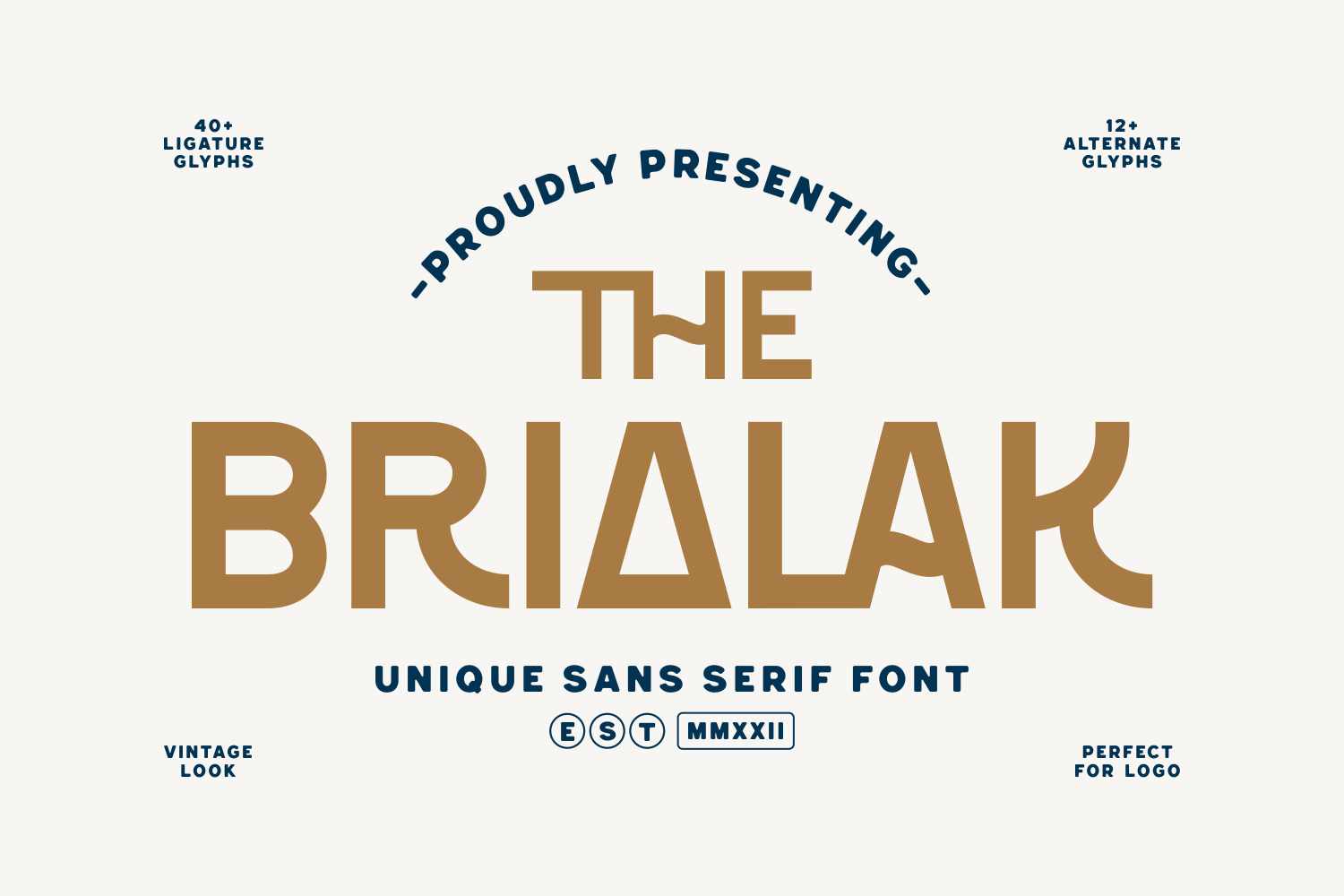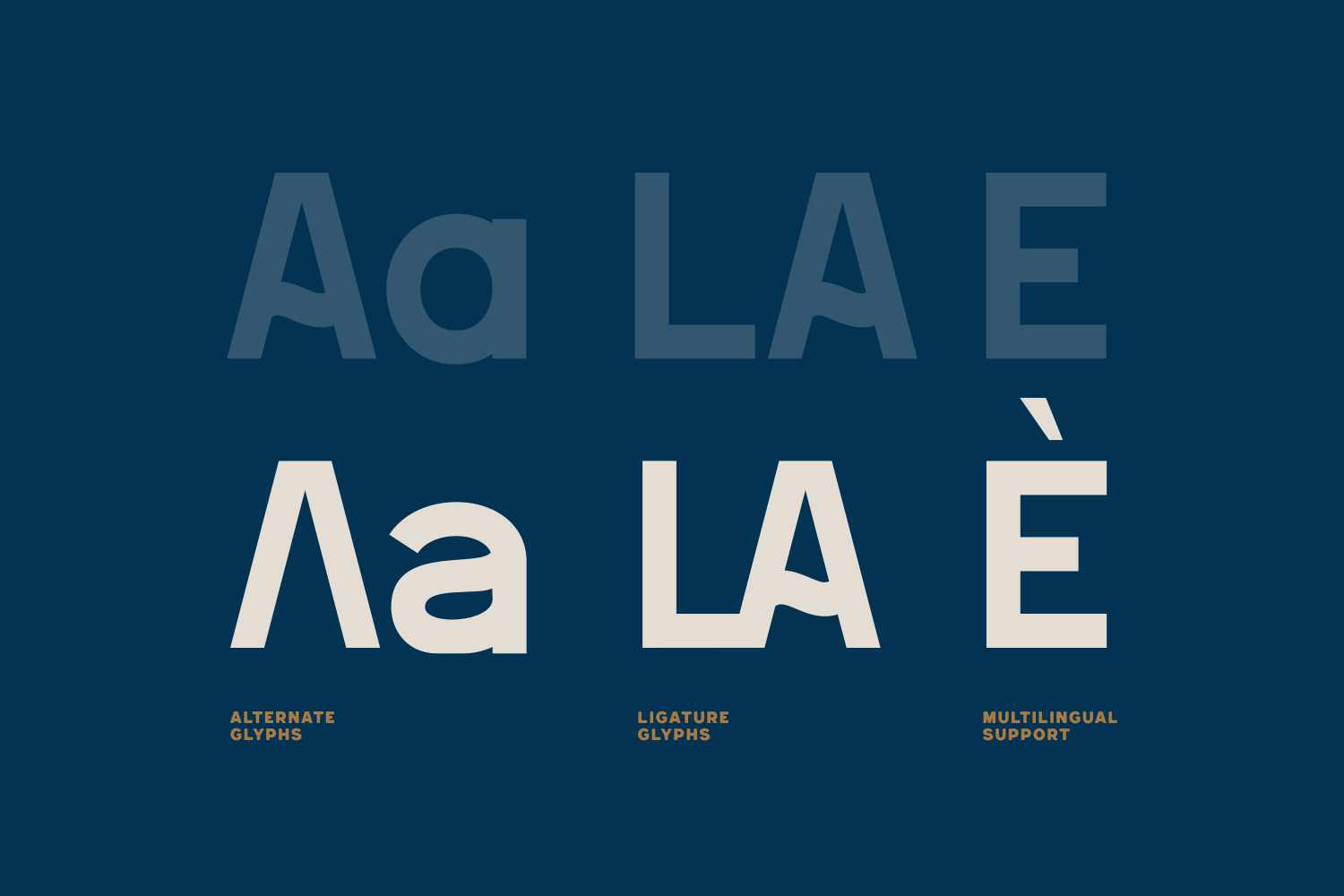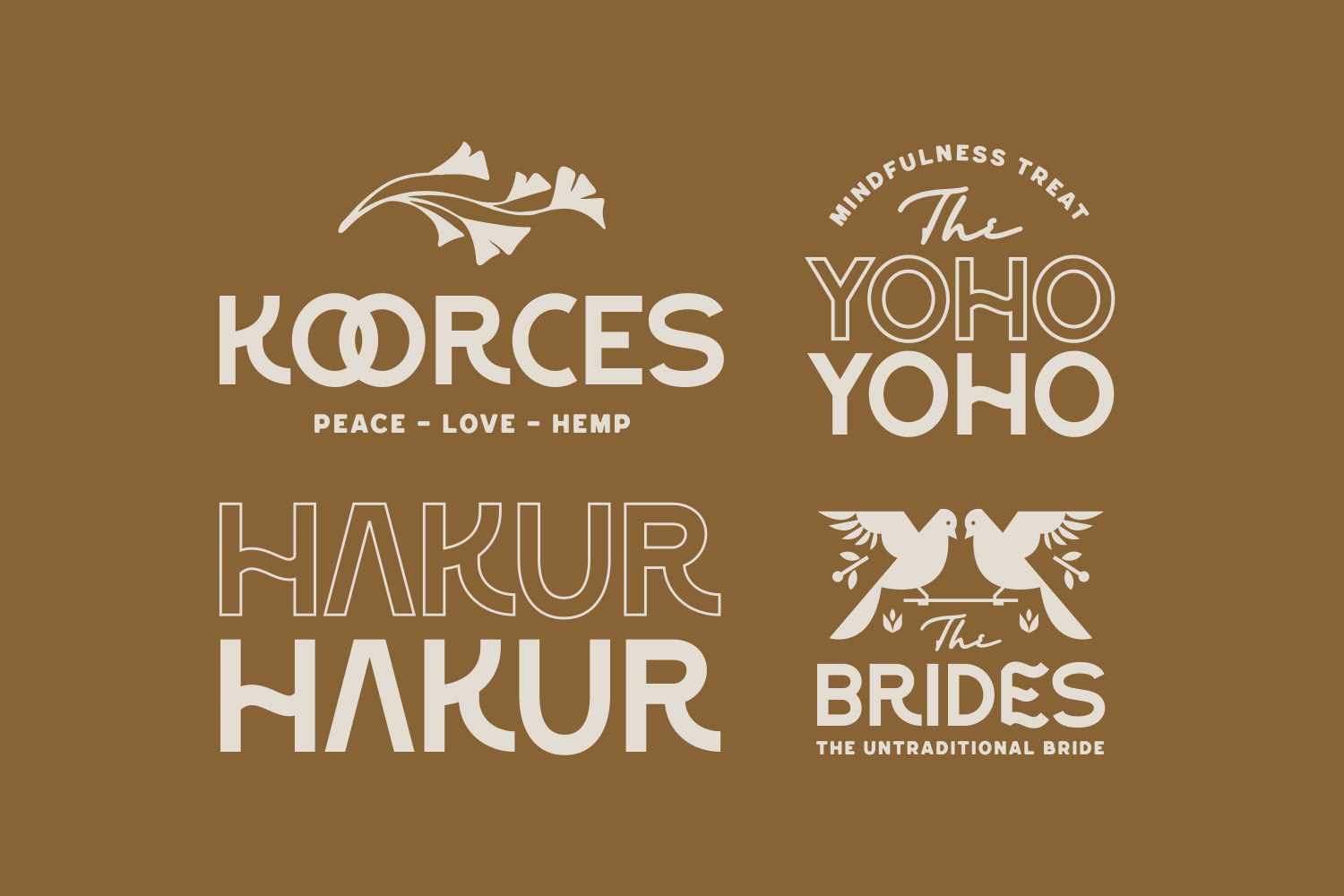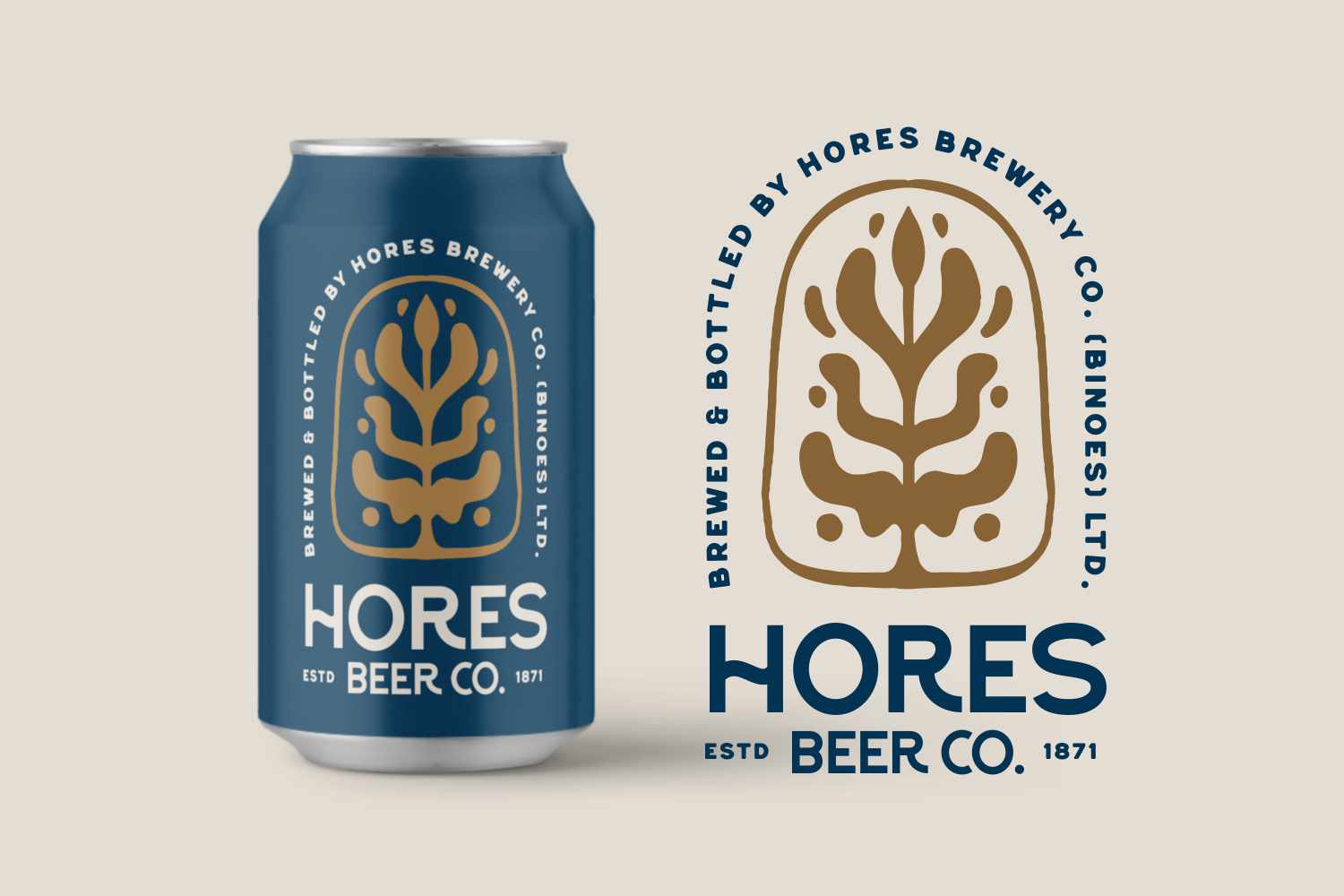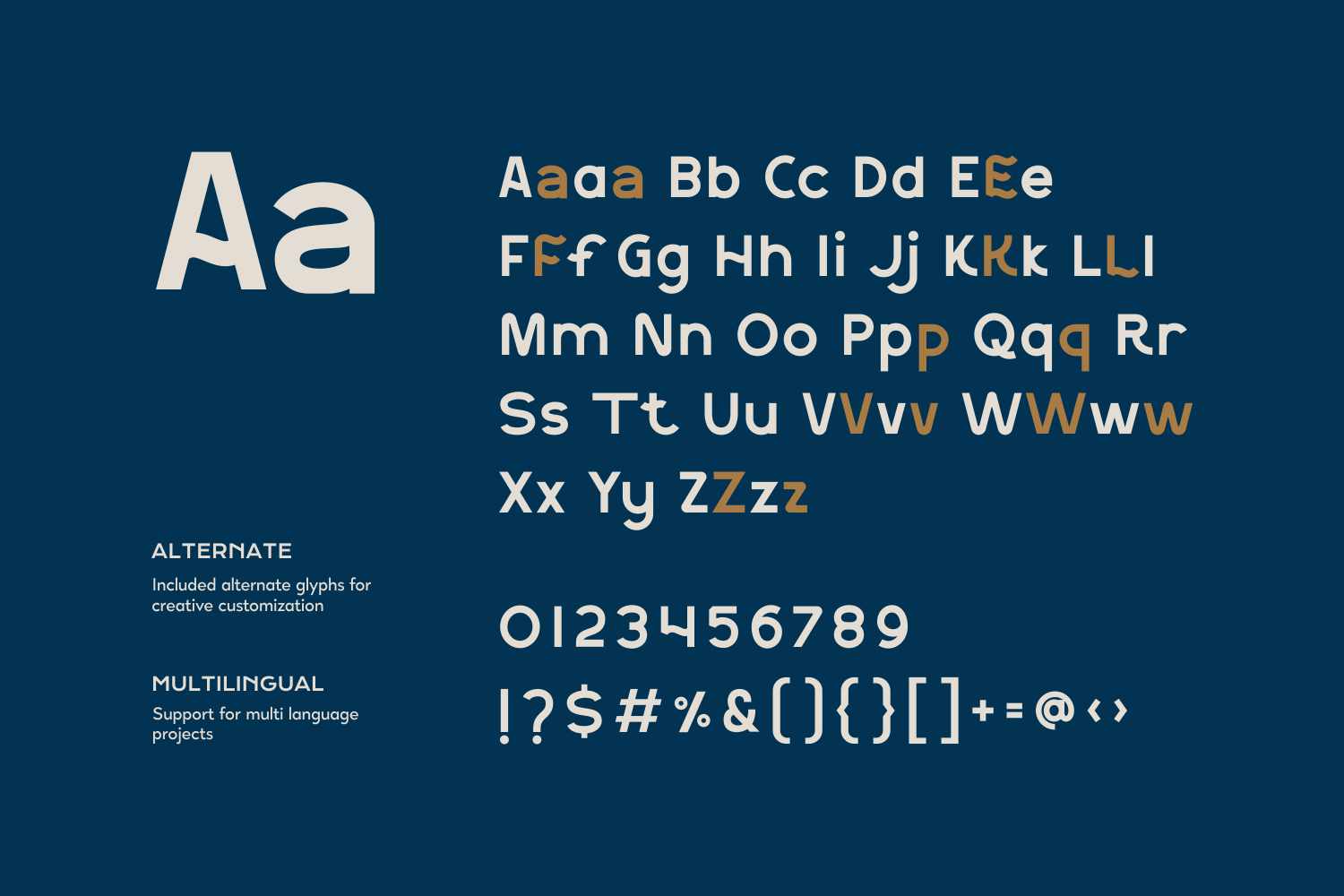
Brialak
Brialak is a bold and distinctive sans serif font that blends vintage charm with a modern geometric touch. Its unique character shapes, combined with over 40 ligatures and 12 alternate glyphs, make it versatile for logos, branding, packaging, and editorial design. The font’s strong personality ensures that any design stands out while maintaining readability and style.
Perfect for projects that need a balance of retro inspiration and contemporary design, Brialak comes with multilingual support and a full set of uppercase, lowercase, numbers, and punctuation. Whether you’re designing beer labels, fashion branding, posters, or creative identities, this font adds a striking, professional edge to every layout.